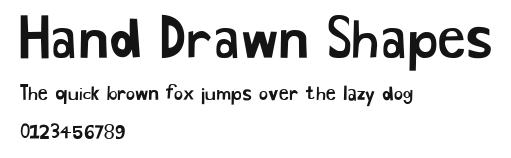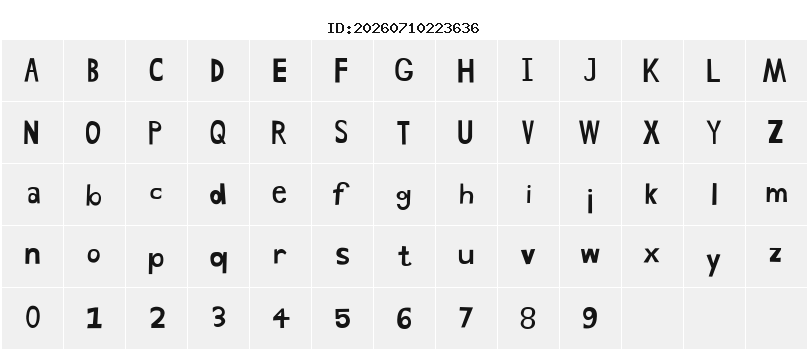
• Font Name: Hand Drawn Shapes
• Full Font Name: Hand Drawn Shapes
About Hand Drawn Shapes.ttf
Hand Drawn Shapes.ttf is a modern, elegant sans-serif font designed for ultimate readability and visual harmony. Perfect for branding, headlines, web design, and print materials.